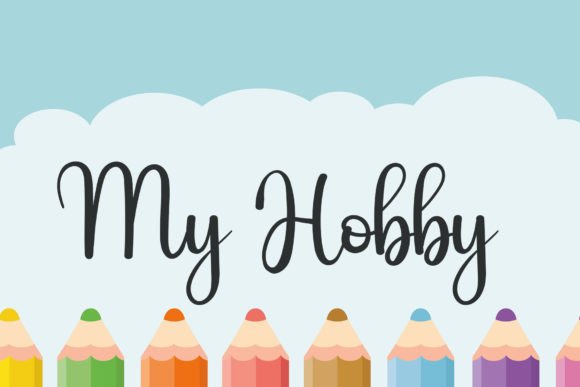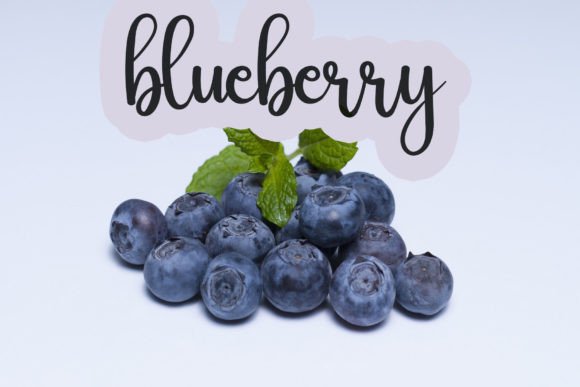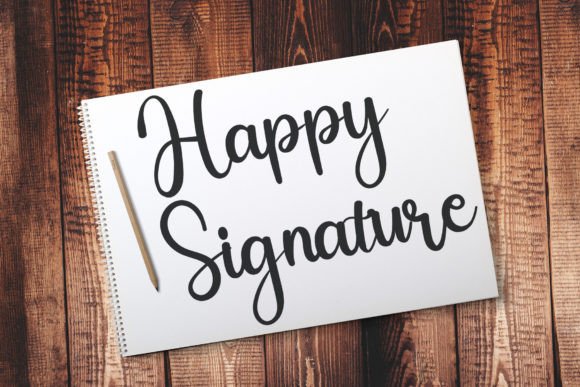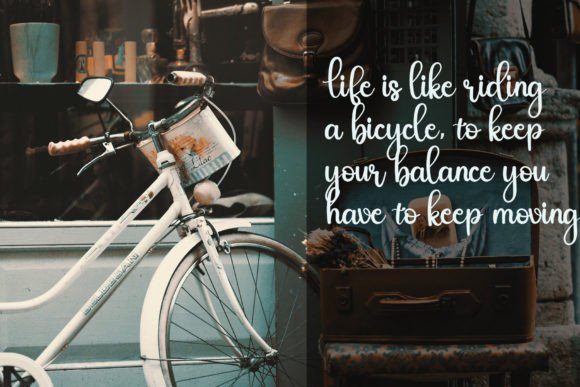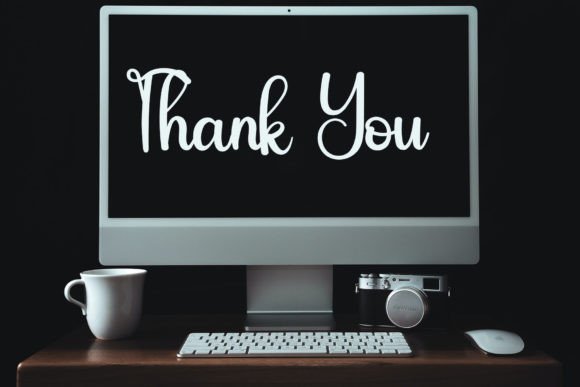
The Perfect Font for a Season of Creativity
It’s that time of the year when our minds are filled with visions of festive decorations, cozy gatherings, and of course, creative projects. As a designer, you’re probably thinking of ways to add a touch of elegance to your holiday-themed designs. You’ve likely scoured through countless fonts, searching for the perfect one to make your projects stand out.
Enter the Holiday Font, a trendy handwritten font that exudes a contemporary atmosphere and impeccable form, inspired by timeless classic calligraphy. This versatile font is not just limited to holiday projects; it can be used to create a wide range of products, from invitations and greeting cards to social media graphics and merchandise.
With the Holiday Font, you’ll be able to add a touch of sophistication and class to any design project, making it a valuable addition to your font library.
Holiday Font Key Features
- Unique Characteristics: The Holiday Font family features a festive, playful design with intricate details and ornaments, making it ideal for holiday-themed designs, invitations, and greeting cards.
- Character Set: Holiday Font includes a comprehensive character set, including uppercase and lowercase letters, numbers, punctuation marks, and various symbols.
Designer Review: Holiday Font
At first glance, the Holiday Font is a stunning and festive typeface that’s sure to get you in the holiday spirit. ✨ Its unique blend of elegant script and playful ornamentation makes it perfect for creating eye-catching holiday advertisements, greeting cards, and even packaging designs. The font’s versatility is one of its strongest assets, and I love how it can be used for both formal and informal projects.
One of the standout features of the Holiday Font is its wide range of characters, including ornaments, symbols, and even some fun holiday-themed icons. ✨ This makes it incredibly easy to add a personal touch to your designs without having to search for separate graphics or illustrations.
- ⚠️ Limited availability of font weights: The Holiday Font only comes in a few font weights, which can make it difficult to create a consistent look across different design elements.
- ⚠️ Limited language support: Unfortunately, the font does not support many non-Latin languages, which can be a major drawback for designers working on international projects.
Overall, I think the Holiday Font is a fantastic addition to any designer’s toolkit. While it has some limitations, its unique style and versatility make it well worth considering for your next holiday-themed project. Just be sure to check the font’s compatibility with your design software and any specific language requirements before getting started.
To get the most out of the Holiday Font, consider the following tips:
- Use it to create festive headings and titles.
- Pair it with bold or italic text for added emphasis.
The Holiday Font is commonly used in:
- Christmas and New Year’s invitations and cards.
- Thanksgiving and Halloween-themed designs.
- Winter and holiday-themed social media graphics.